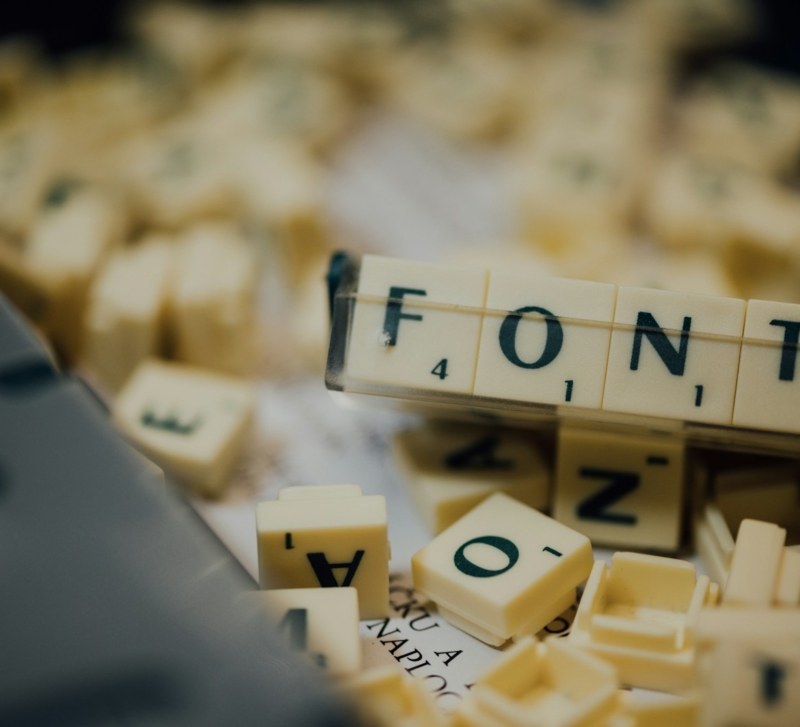
How to Choose the Right Font for Better SEO and Readability
Many business leaders understand that Search Engine Optimization (SEO) is an important element of their business’ website, but fail to understand the “why” behind such needs. In today’s digital landscape, popular search engines have developed a set of rules that encourage websites to act in the best interests of the user visiting their website. The more your website adheres to such rules, the more prominently your website is displayed in search results.
So, how does your website adhere to such rules? Well, the truth is that it is all about the details.
Making Your Website User-Friendly
Websites are often the main point of discovery for new customers in any kind of industry. When prospective customers use a search engine to find something they are looking for, the customer expects that the website they are visiting is easy to navigate, full of helpful information, and is easy to read. If these needs are not fulfilled, then the user might click the “back” button and search for another website that helps them find what they are looking for.
Should your website fail to address these needs, what ends up happening is that the user “bounces” off your website, leaving it for something more helpful. As such, a business’ website needs to be clear and concise, navigate easily, and of course, be easy to read.
The Importance of Font
While some fonts may appear eccentric or visually appealing, a non-traditional font can sometimes be hard to read, leaving the user struggling to read text and navigate the website itself. Should a user be unable to read the contents of your website at all, they will once again bounce off the website, leaving your site for another site that has information that is clearer to understand.
Choosing a font that is highly readable is essential to ensuring potential customers don’t leave your website for another. Very plain, basic, and black fonts are often the easiest to read, including options like Roboto. Ensure that your font choice isn’t clashing with a strange background color, and re-read it on your website to ensure that you can also read it yourself.
Not only do plain fonts remain easy to read, but they are also quickly loaded and easy for web browsers to display. A website that is fast, easy to read, and includes fast-loading fonts, images, and graphics is one of the many details that come with exceptional SEO.
The Complexities of SEO and Digital Marketing
Digital marketing stands as the many stories we tell to target audiences, as it really is a never-ending conversation. Great SEO takes a balance of talented writing abilities and technical skills to help your website shine in search results. Simply put, it is hard work! That is why so many business leaders use an SEO agency to make these matters far simpler to understand.